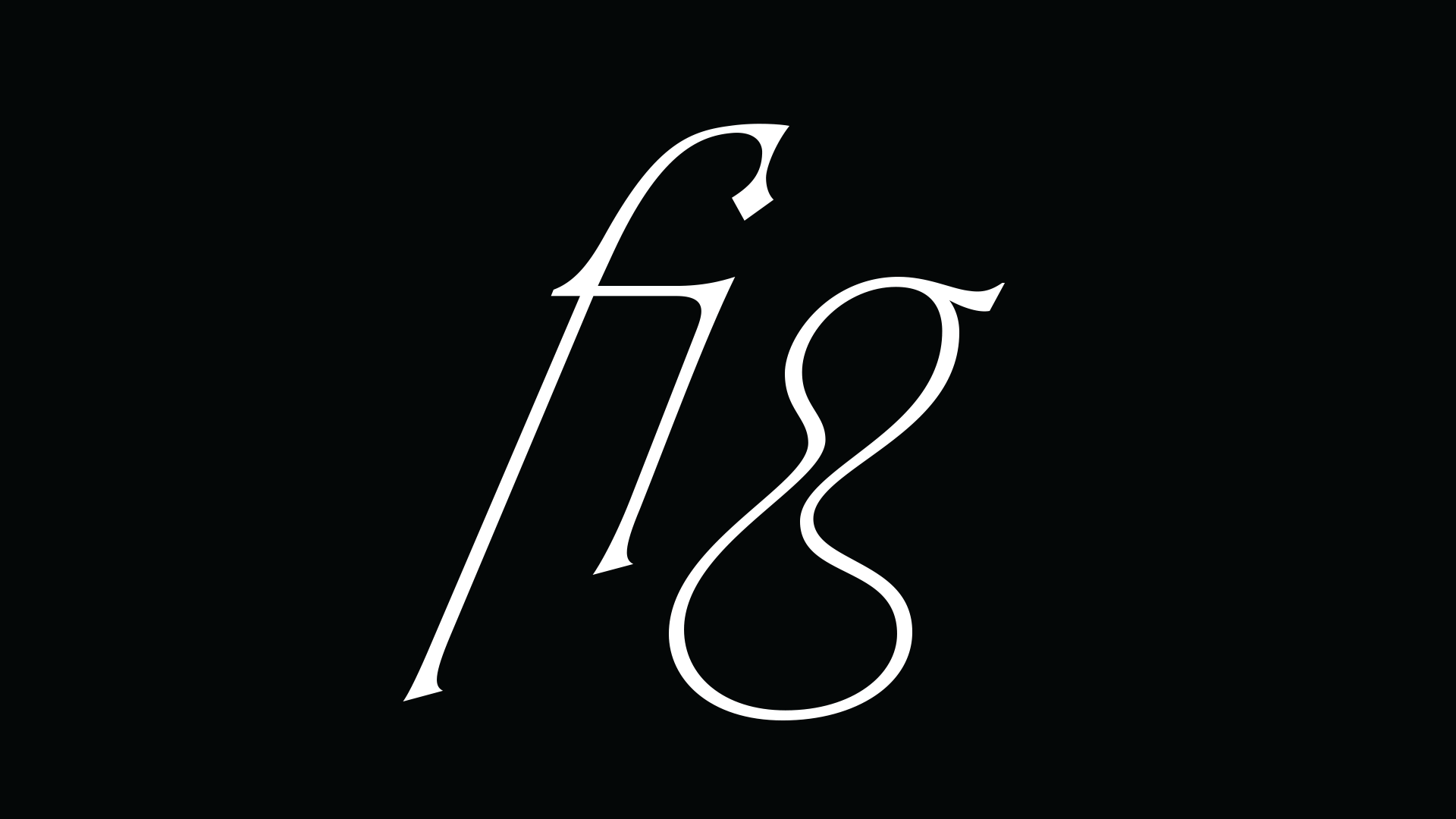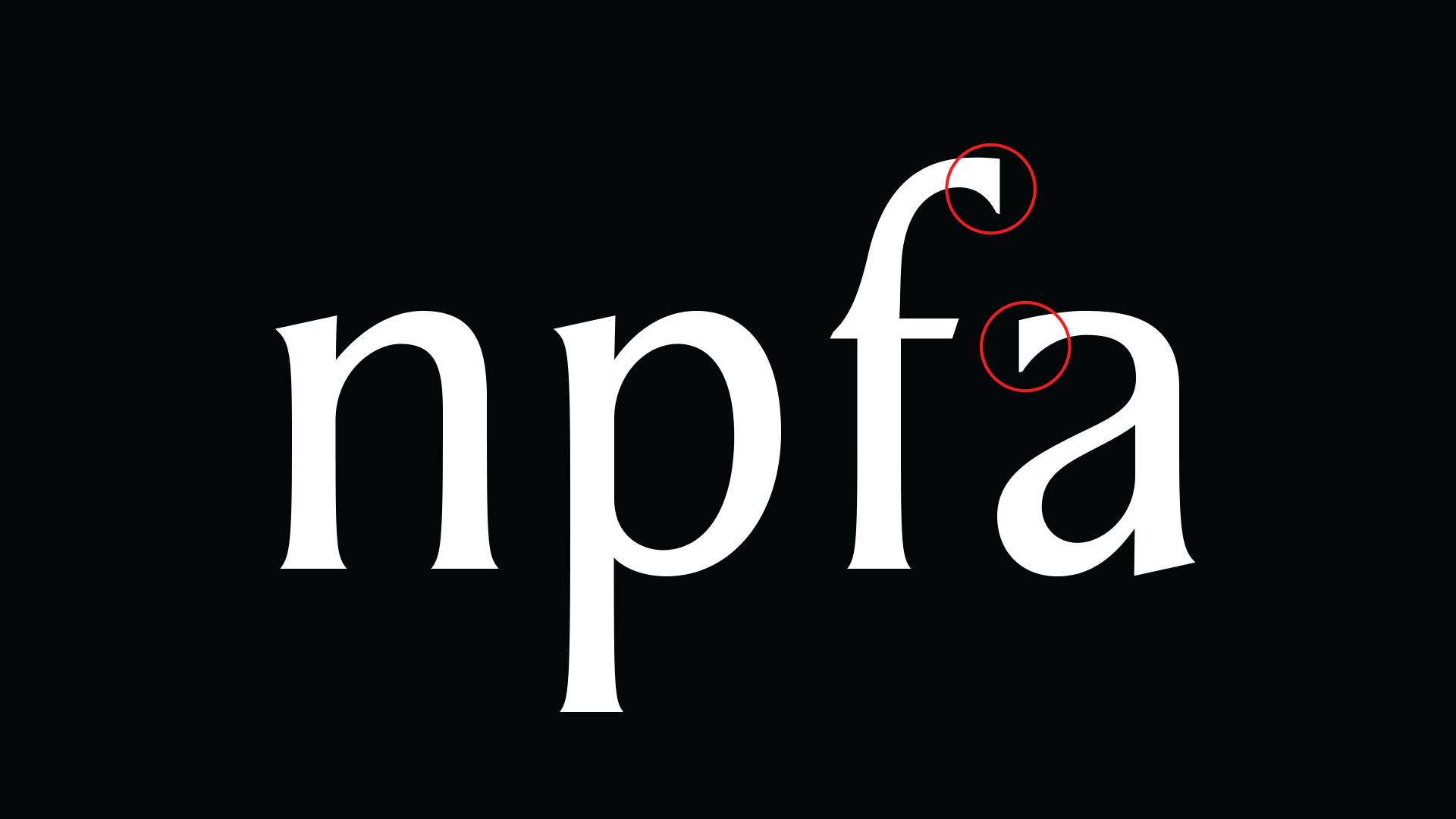
Villianelle
The idea for the typeface Villanelle came first from my desire to create a typeface for an audience I know well, being one myself: brand designers. And really, if we wanted to get specific, a typeface for… me. What typeface would I want to use on a dream client project? Something delicate, refined, and editorial. Something with restrained flair.
But I needed a more defined North Star to give my vision a proper foothold. As I thought about what could help guide me toward a typeface with the elements I envisioned, the character Villanelle from Killing Eve came to mind.
A skilled assassin living in a world of luxury, she is surrounded by an aura of intrigue and mystery, as the protagonist, Eve follows her trail.
Elegant, sophisticated, and alluring, yet dangerous. Like a rose.
My typeface aims to visually translates this delicate tension.
The pointed flare serifs and terminals give a slashed, violent quality, while the curves and joints (or lack thereof) in the round shapes evoke her graceful and poised demeanor. Both subtle, they come together to create a harmonious but nuanced balance. The occasional swash-y glyph reflects Villianelle’s artistic flair and luxurious lifestyle.
While the whole family brings in together the Villanelle personality, the italics provided an opportunity to push the elements further. Slanted at a steep 23 degrees, the violent-slashed quality became much more prominent, meaning more swashes would also be appropriate.
The Italic glyph set is currently incomplete, but I plan to bring her into the world soon, full of all the delectable danger of her namesake.
And as for whether or not I created the brand-designer’s typeface that I aimed to, I’ll just have to start using it on some projects to see!